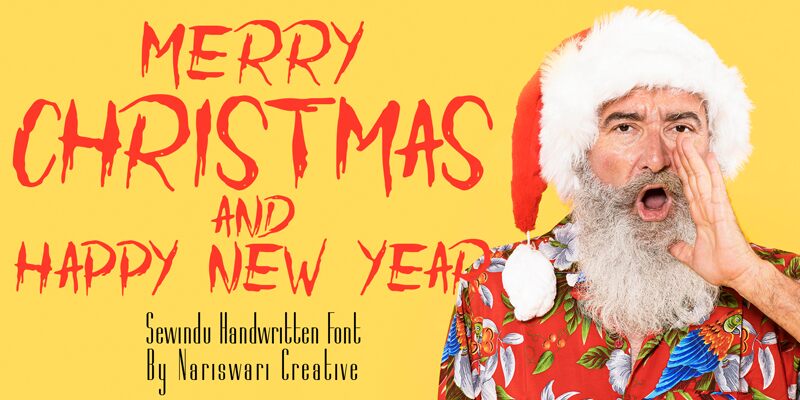
Sewindu, the bewitching creation by Nariswari Creative, is a spellbinding brush font. Its semi-bold weight adds a touch of intensity to your designs, making it perfect for everything from spine-chilling horror movie posters to haunting Halloween invitations. This font unleashes an eerie charm that is sure to captivate your audience. With its versatile nature, Sewindu can lend a bone-chilling vibe to book covers, clothing brands, or even tattoo designs. Embrace the darkness with Sewindu and let your creativity run wild in the shadows.